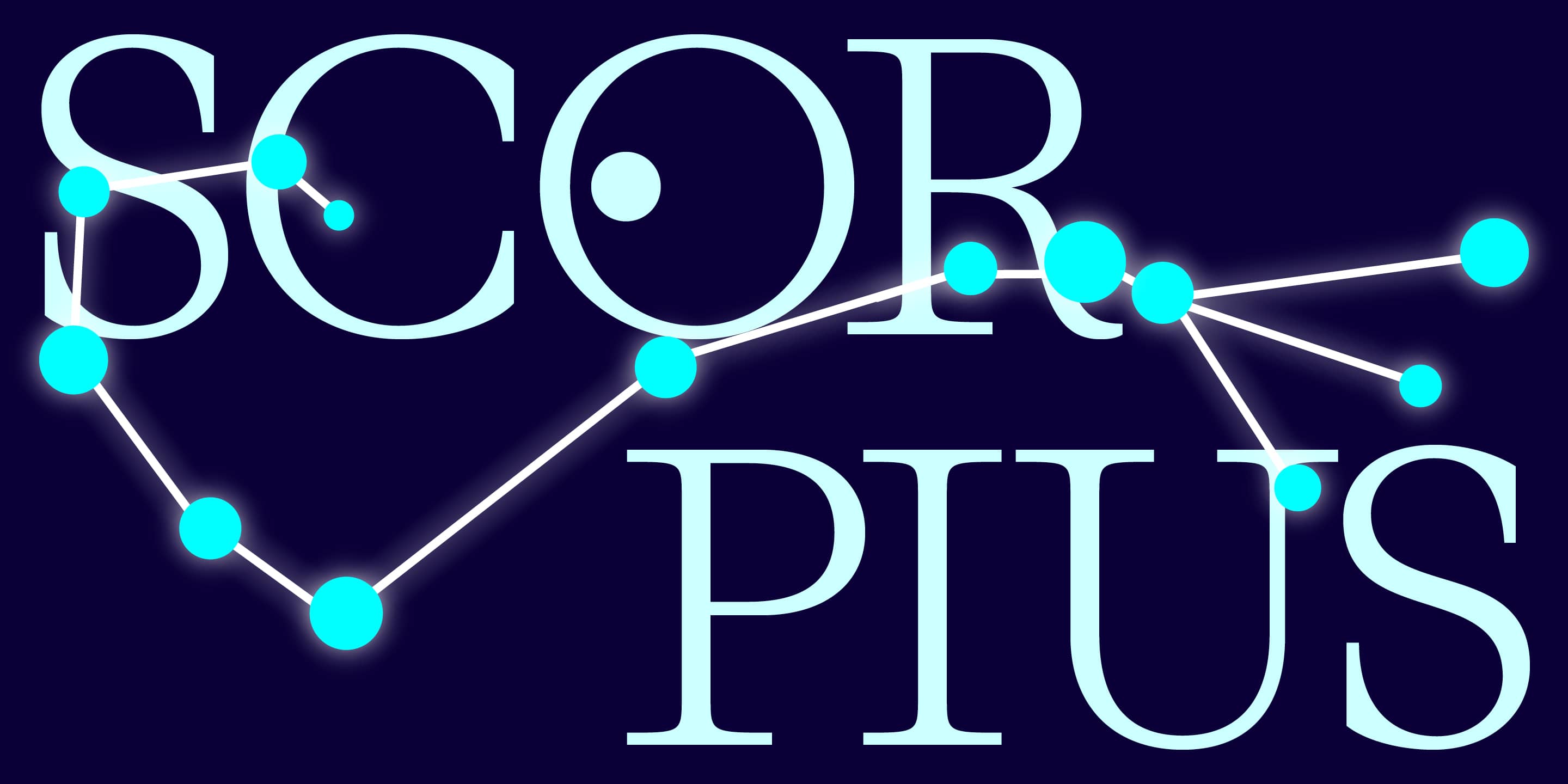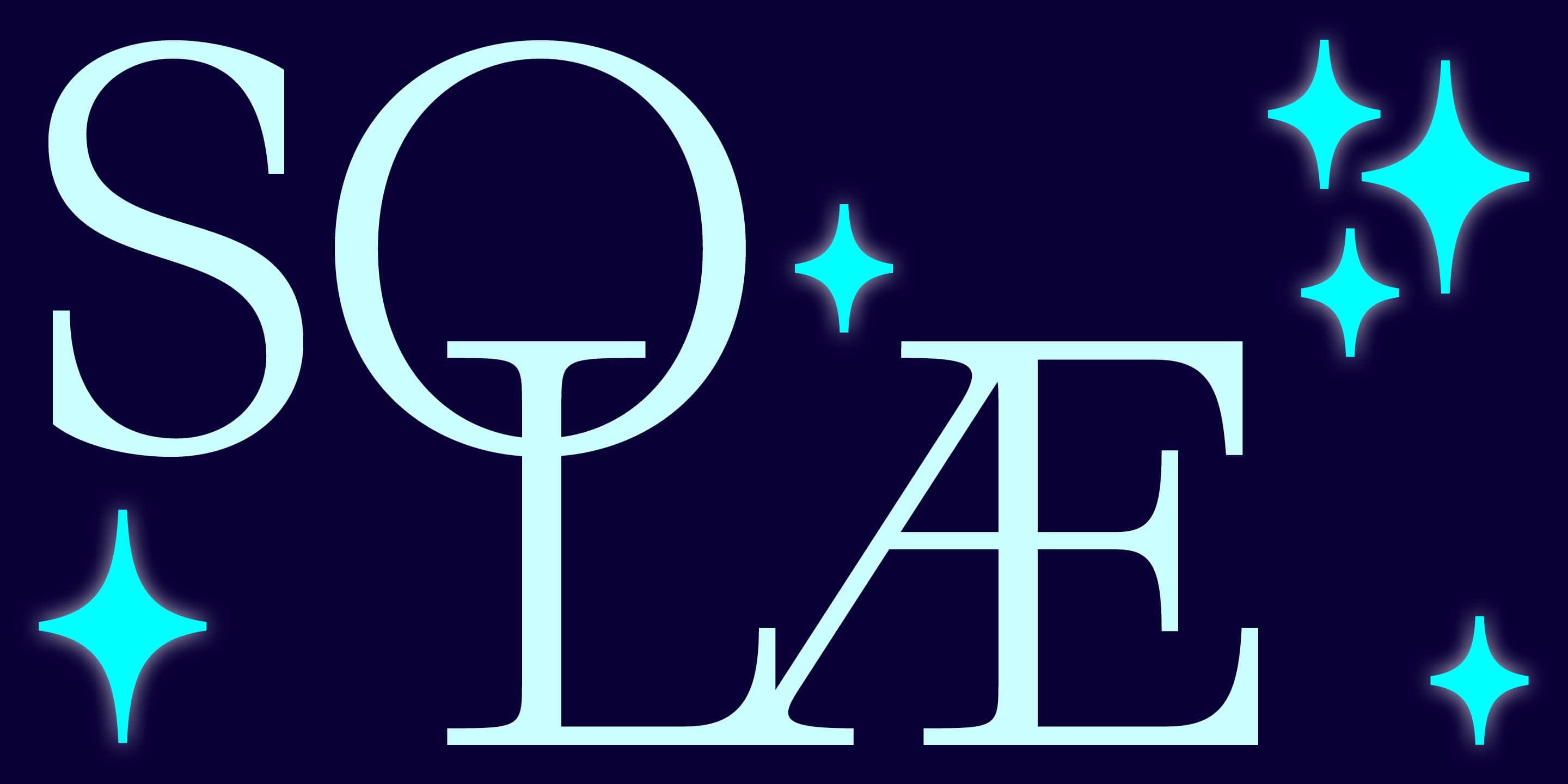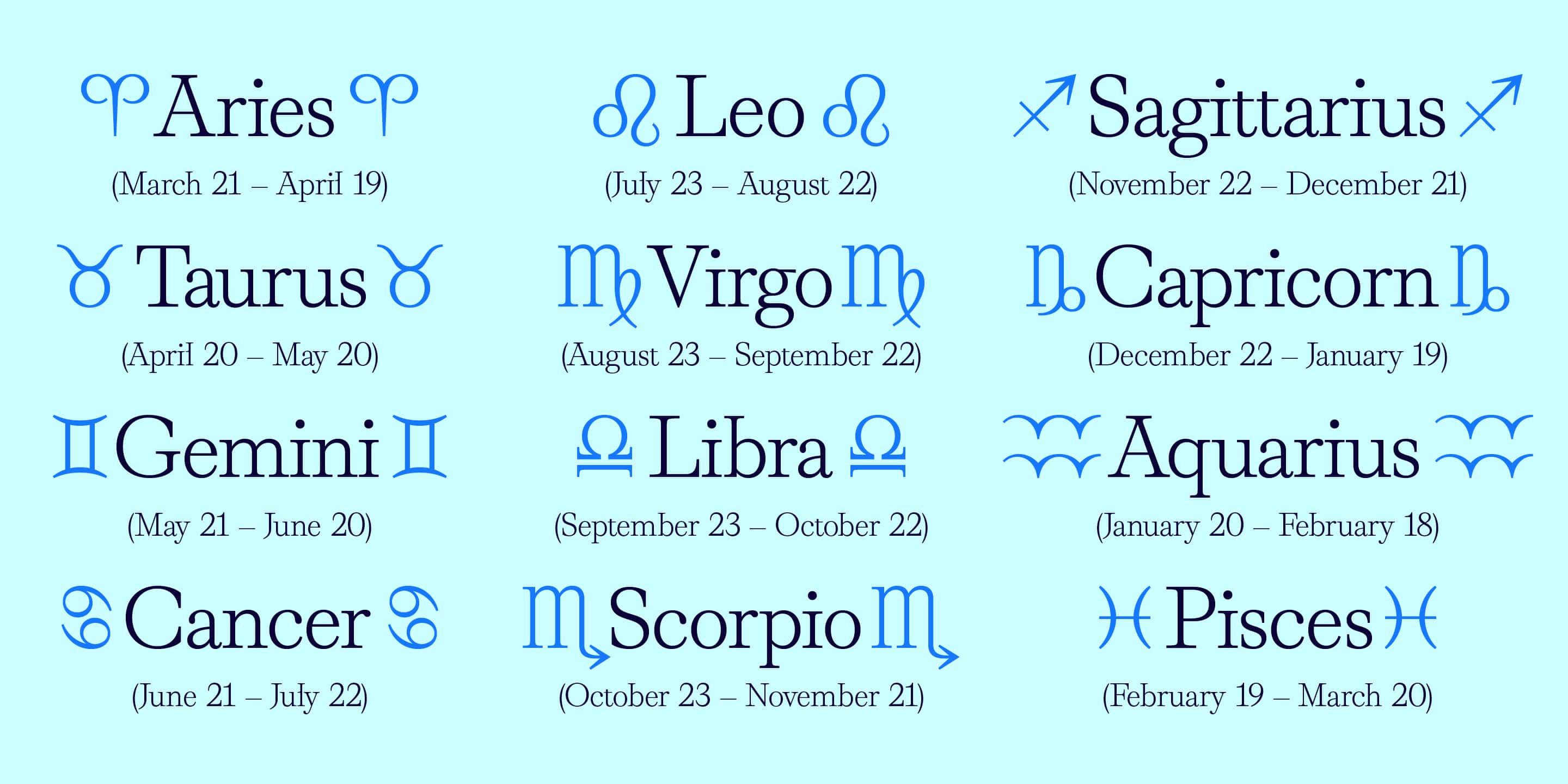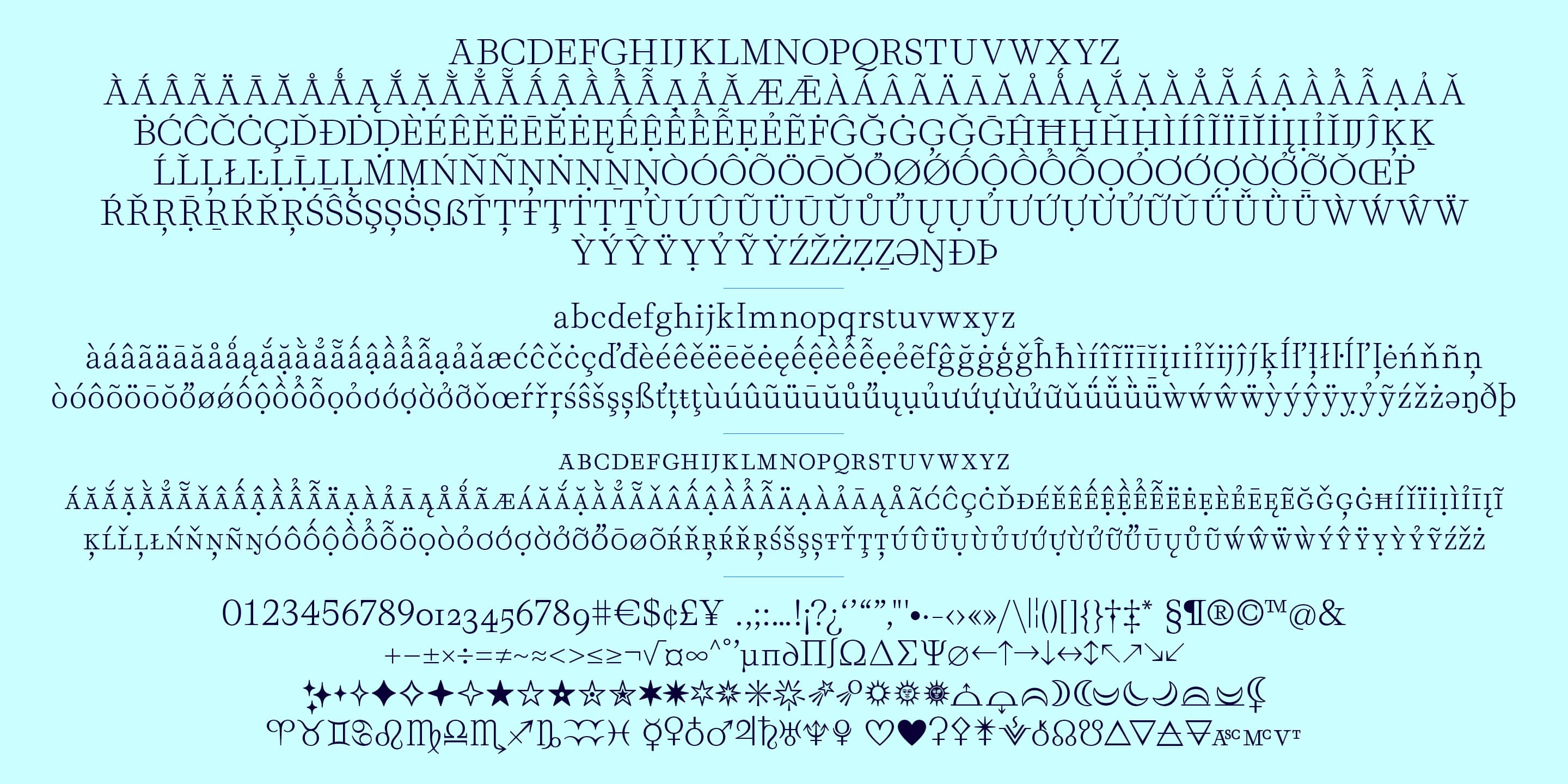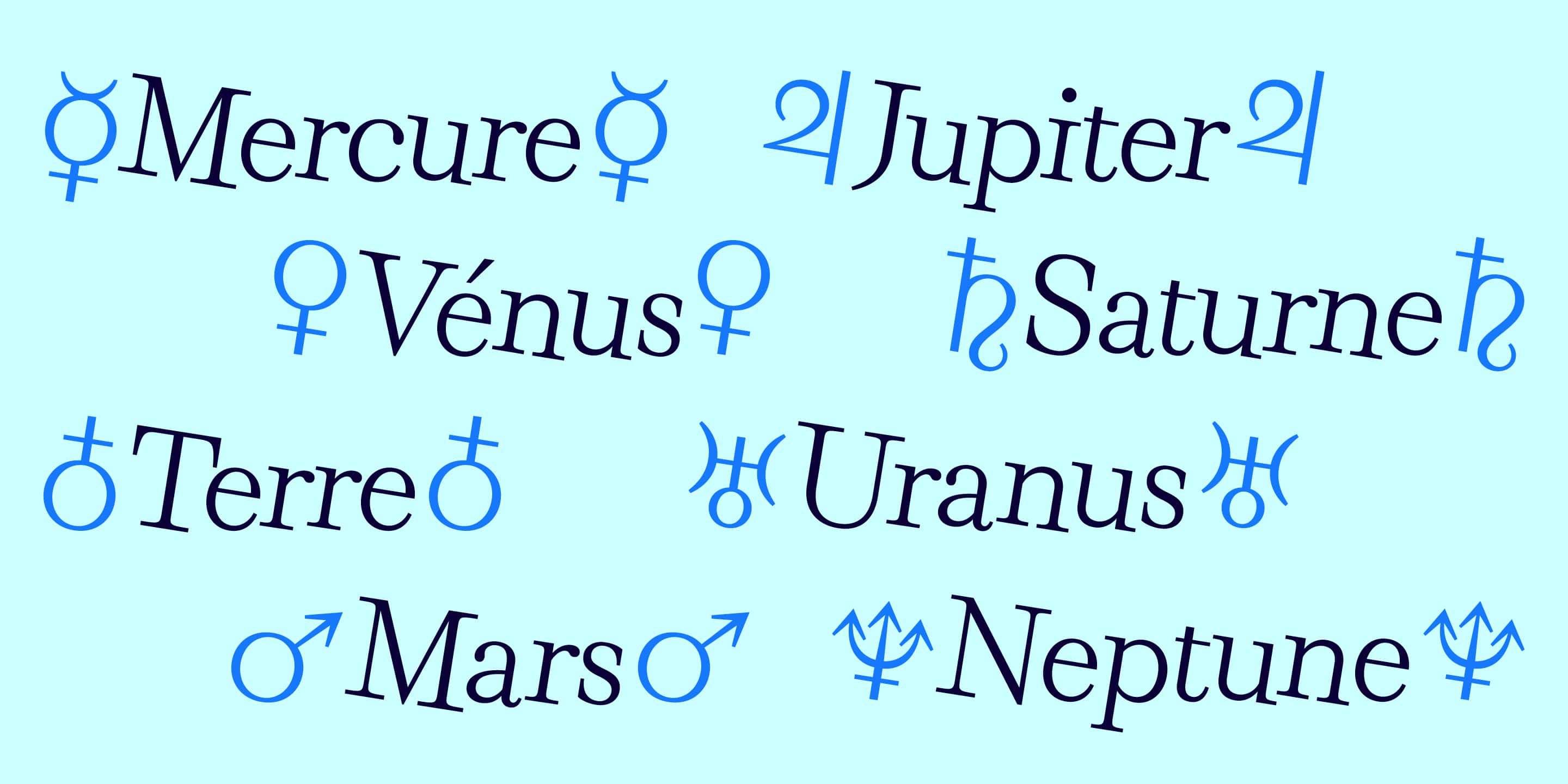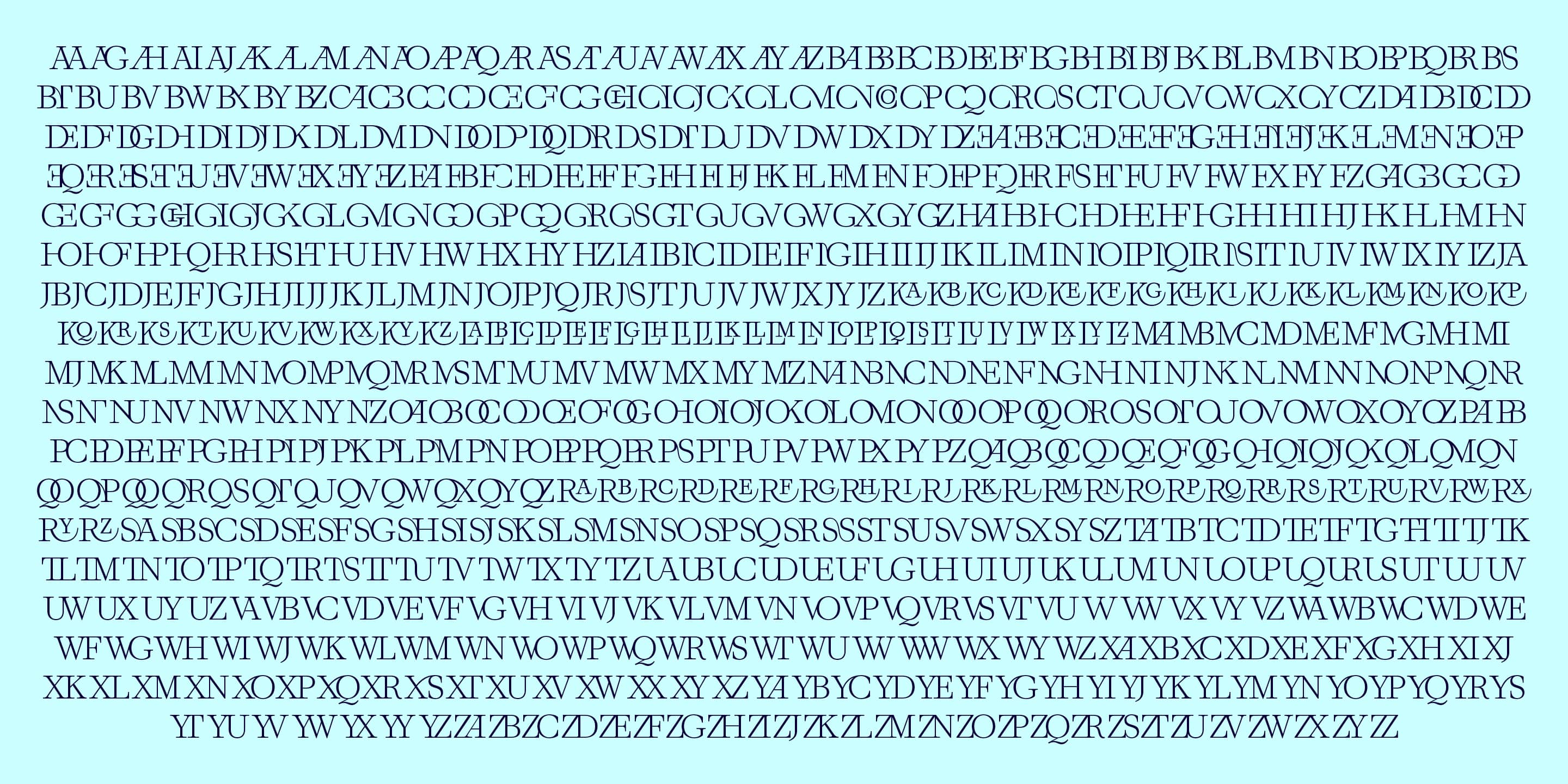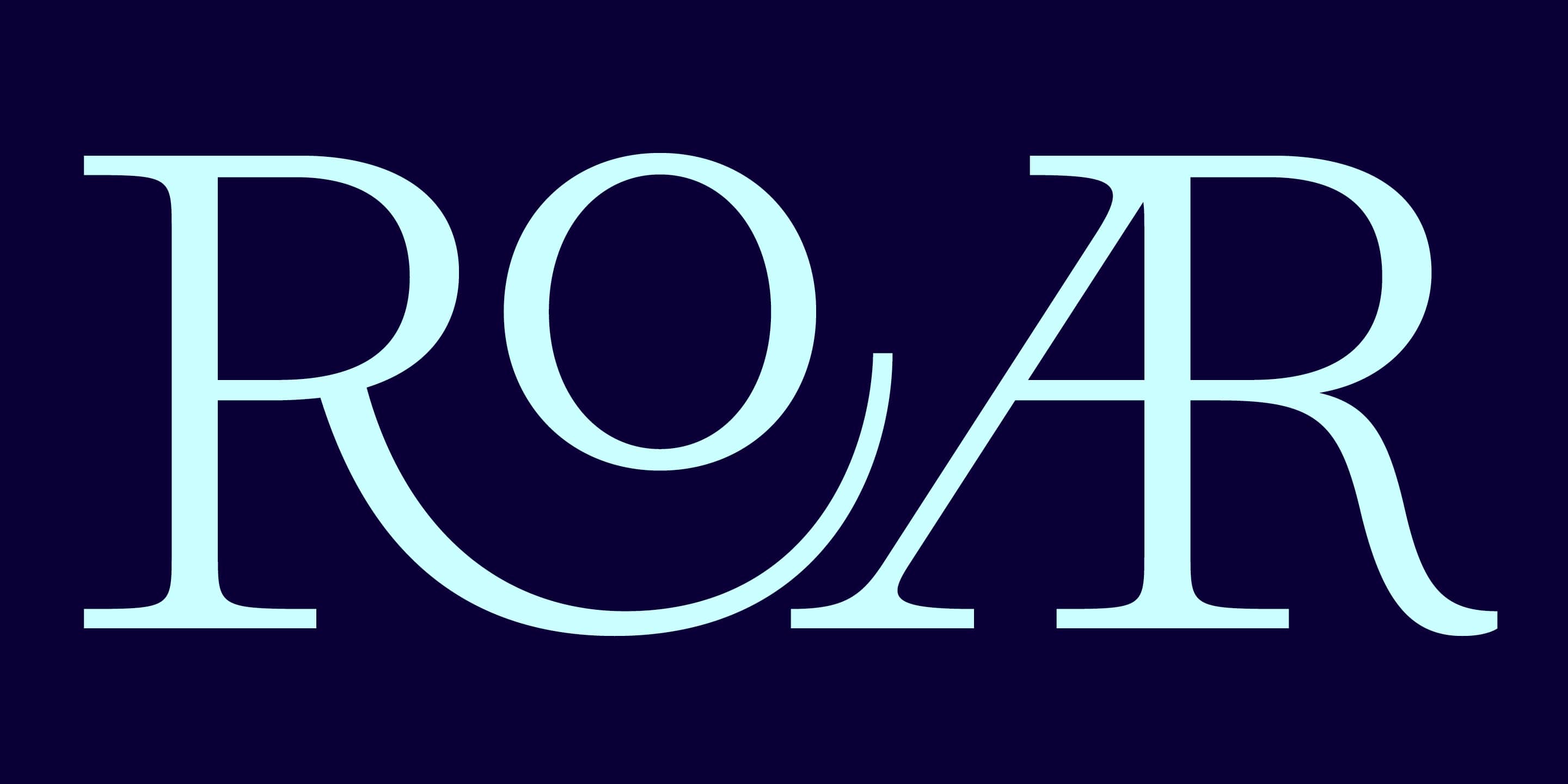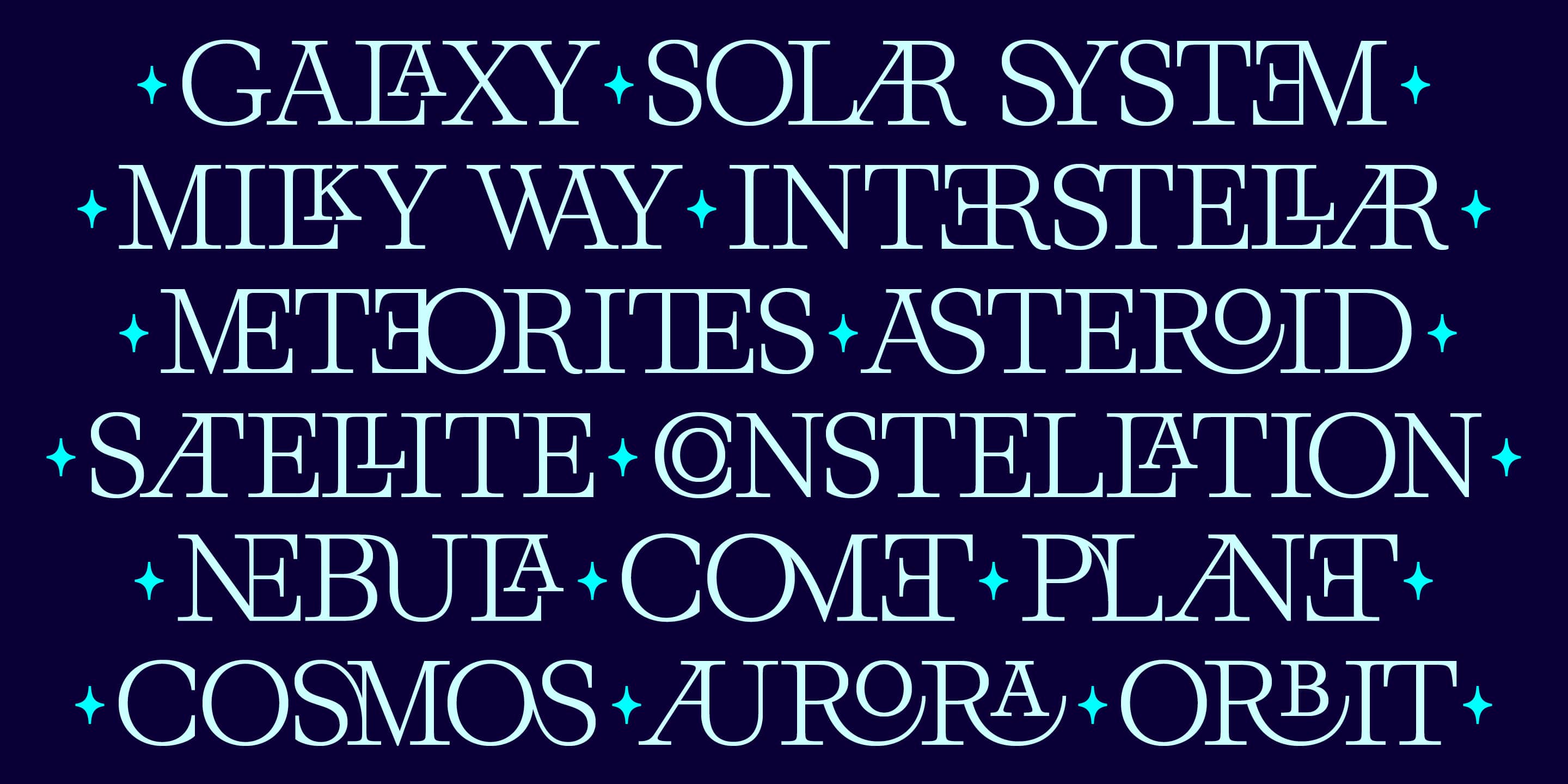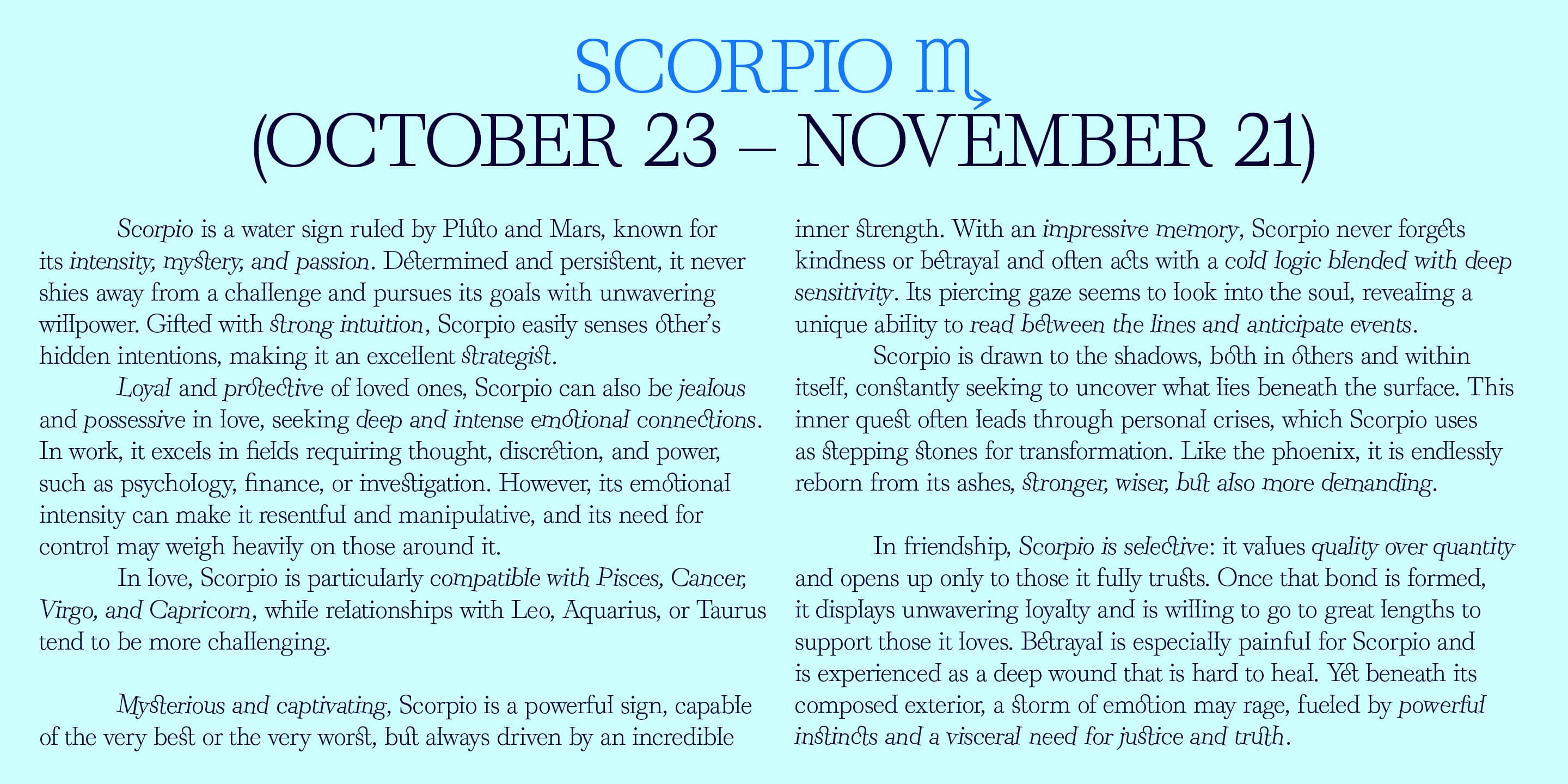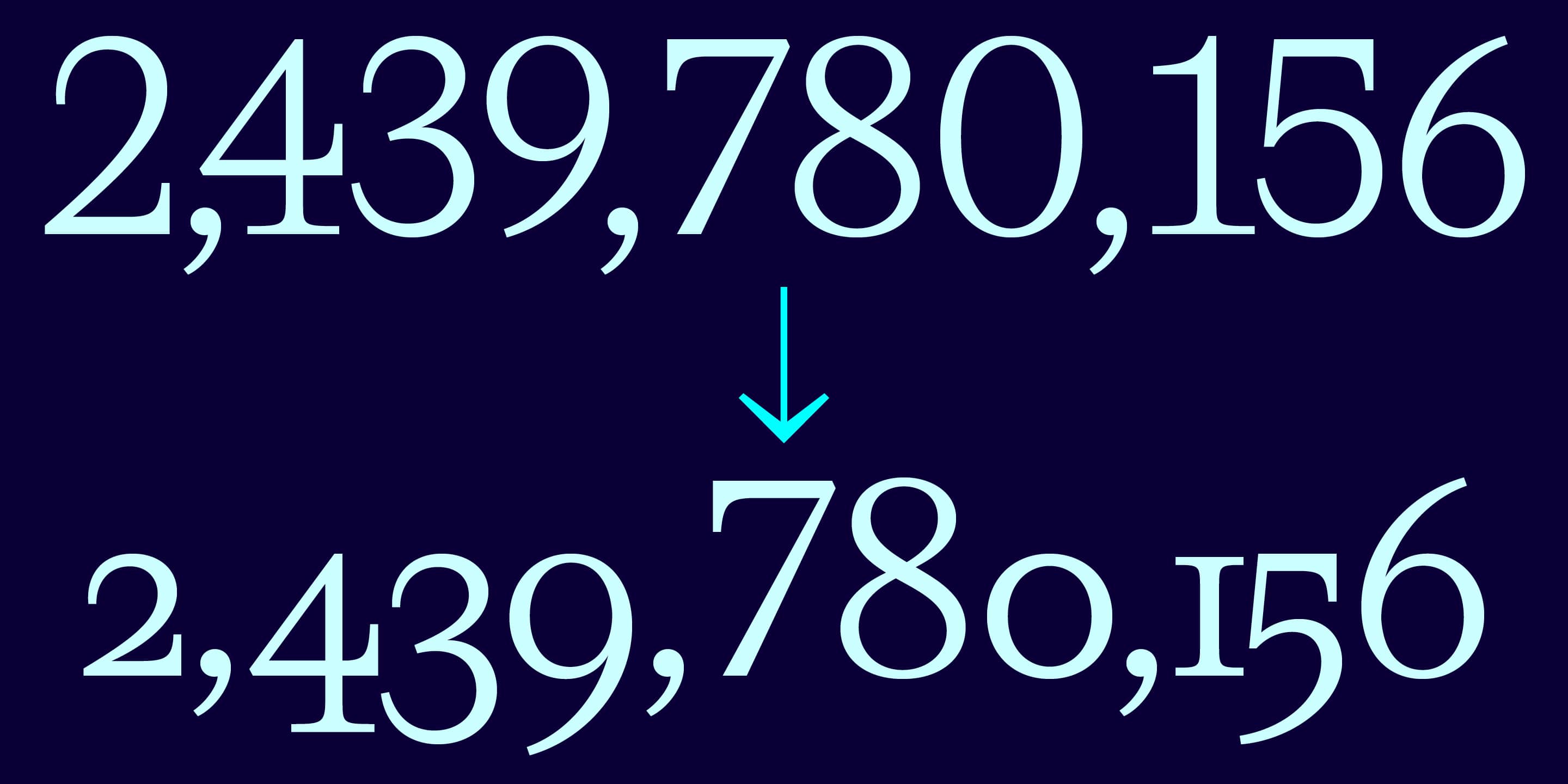
Solae
Solæ is a font shaped by the movement of planets, stars, and cosmic trajectories. Designed with delicate lines and subtle contrasts, it draws references from celestial bodies and translates them into a contemporary, carefully built type system.
Solæ is a revival inspired by the historic Romain du Roi, the typeface commissioned by the Louis XIV, the Sun King (Roi Soleil) himself, from whom the name Solæ is inspired.
Solæ features thousands of meticulously designed ligatures and alternate forms, making it a versatile tool for editorial layouts, titles, posters, visual identities, and beyond. The Light style is accompanied by a Rotalic version: a 9° rotated design that echoes orbital movement and offers a distinctive alternative to traditional italics.
With over 2,082 glyphs and support for 100+ languages, Solæ includes astrological symbols, moon phases, a wide range of uppercase and lowercase ligatures, and a full set of characters for inclusive writing.
This font was crafted for users who appreciate expressive, poetic forms built on a rigorous typographic structure. Solæ combines celestial inspiration with meticulous structural detail, offering a comprehensive and refined toolset suited to sophisticated and discerning design work.